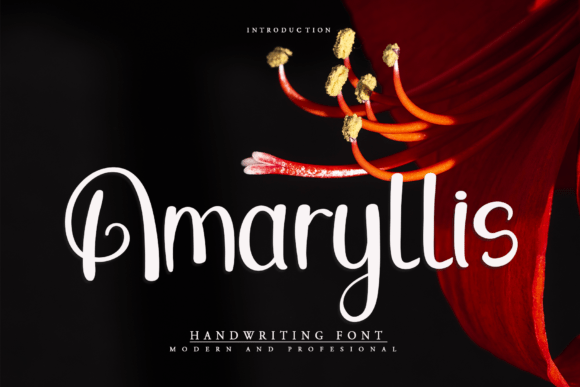
The Amaryllis Font: A Simple yet Powerful Design Tool
I’ll never forget the time I was working on a greeting card project for a client’s birthday. I had all the design elements in place – the colors, images, and layout – but something was missing. That’s when I realized I needed the perfect font to bring it all together. After scouring through countless font libraries, I stumbled upon the Amaryllis font. And, oh, what a game-changer it was! 🎉
A Personal Review of Amaryllis Font
As a designer, I’m always on the lookout for fonts that can add a personal touch to my projects. The Amaryllis font did just that. Here’s what I love about it:
- ✨ Simple and handwritten: Amaryllis has a beautiful, effortless feel to it that makes it perfect for a wide range of design projects.
- ✅ Versatile: From greeting cards to headlines, Amaryllis can be used in various contexts to add a natural and simple feel.
- 💡 Easy to read: The font’s clean lines and clear typography make it easy to read, even at smaller sizes.
Of course, no font is perfect, and Amaryllis has a few quirks:
- 🤔 Limited stylistic alternates: While Amaryllis has some beautiful OpenType features, it’s not as extensive as some other fonts on the market.
- ⚠️ Not ideal for body text: Due to its handwritten nature, Amaryllis might not be the best choice for longer blocks of text.
The Story Behind Amaryllis
Amaryllis was designed by a talented typographer who wanted to create a font that was both simple and elegant. Inspired by the beauty of handwritten letters, the designer crafted Amaryllis to be a versatile font that could be used in a wide range of design projects. From greeting cards to headlines, Amaryllis was designed to add a natural and simple feel to any design.
- Q: Does Amaryllis have OpenType features?
- A: Yes, Amaryllis has some beautiful OpenType features, including glyphs and ligatures. Experiment with these features to add more personality to your text.
- Q: Is Amaryllis suitable for body text?
- A: While Amaryllis is a beautiful font, it’s not ideal for longer blocks of text. Consider using a clearer font for body text and reserving Amaryllis for headlines and titles.